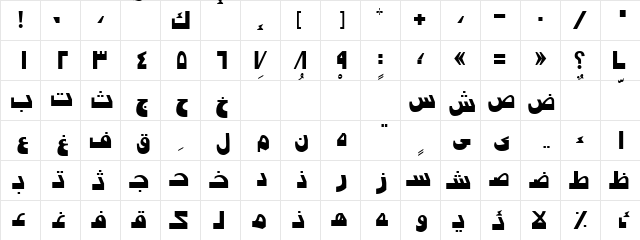
Arabic7ModernSSK Regular
Design Context for Arabic7ModernSSK Typeface
Arabic7ModernSSK offers clean, dependable letterforms without strong stylistic allegiance, making it a practical choice for designers who need flexibility.